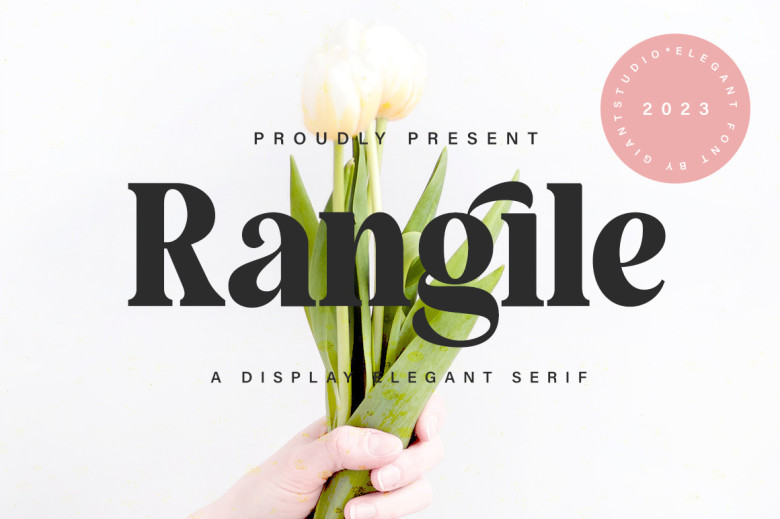
Rangile Font
Rangile font is our brand new display serif font featuring fresh natural Rangile letters with chic contemporary styling that makes this font effortlessly stylish. Perfect as logo for invitations and branding photography as well as watermarking social media posts, perfect also as packaging designs, labels, wedding themes, stationery etc to set a certain atmosphere and special events.
Rangile Serif Font